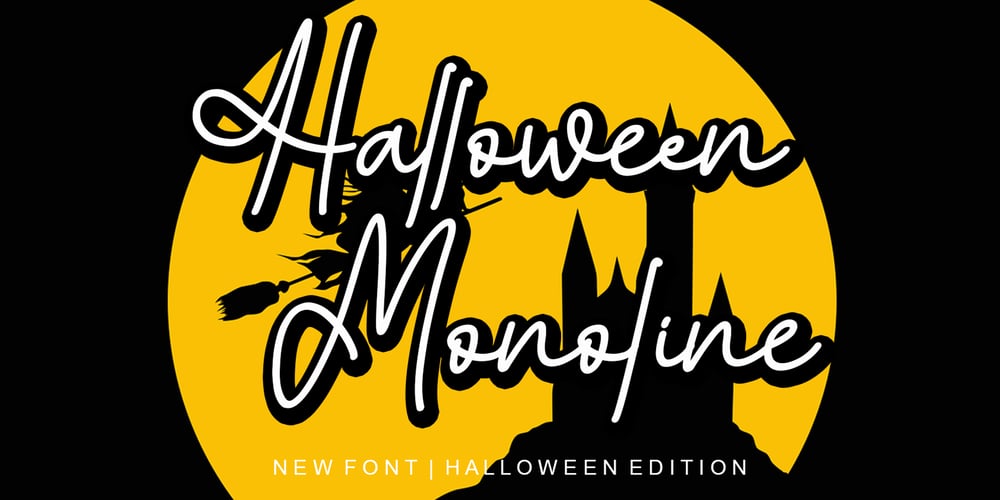
Halloween Monoline
Halloween Monoline font
Halloween Monoline Font Family was designed by Ahmad Afandi and published by Letterafandi Studio. Halloween Monoline contains 2 styles and family package options. Halloween Monoline is a Script Monoline font by Letterafa Studio. It has flowing letters that will give your designs a unique and sweet look. Halloween Monoline font is perfect; logos, greeting cards, a package design, a brand identity, craft design, any DIY project, book title, wedding invitation, packaging, and more.